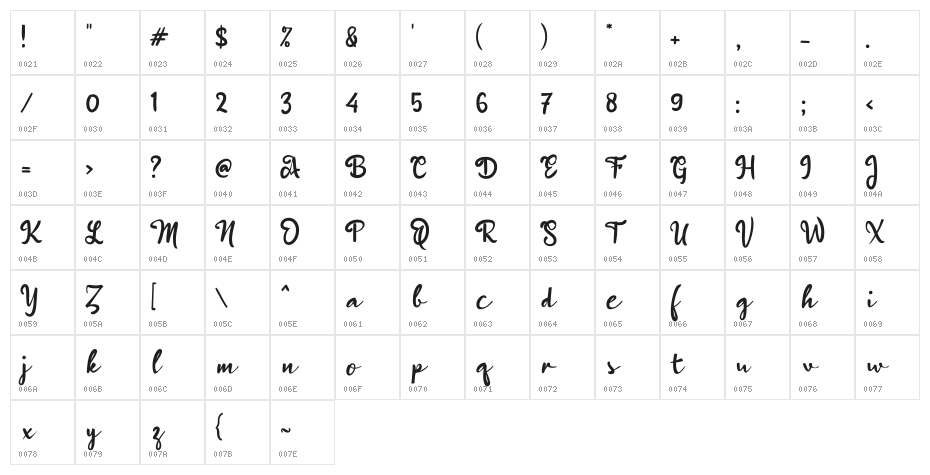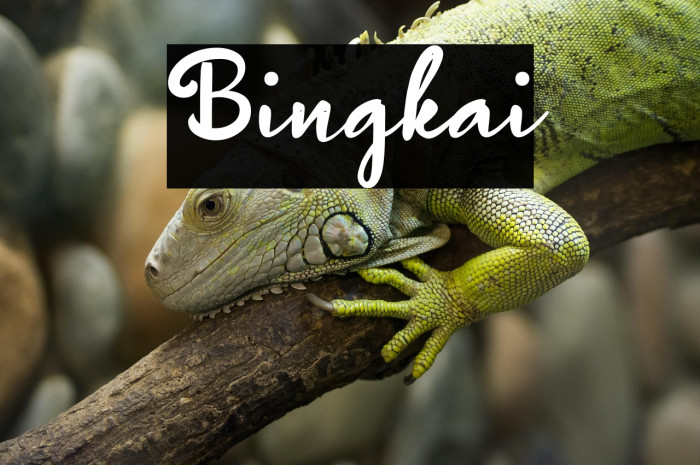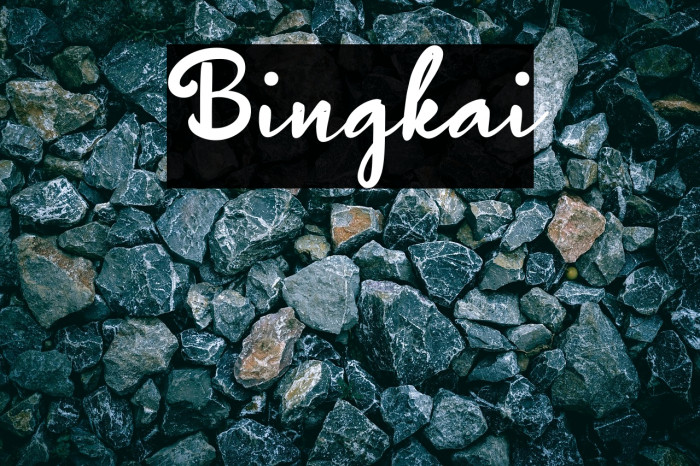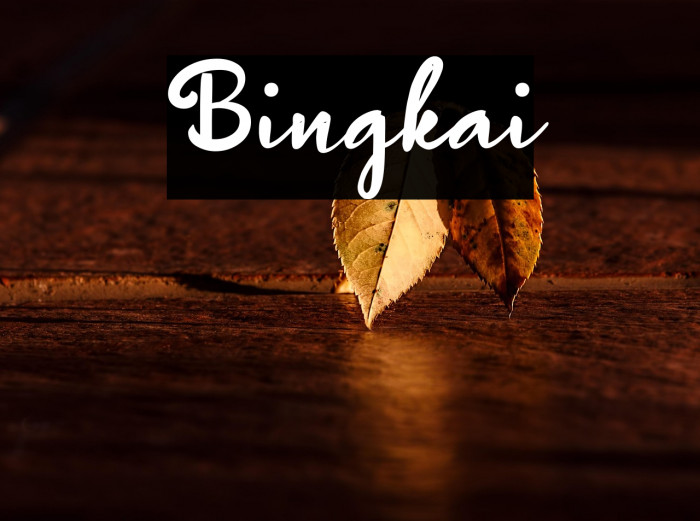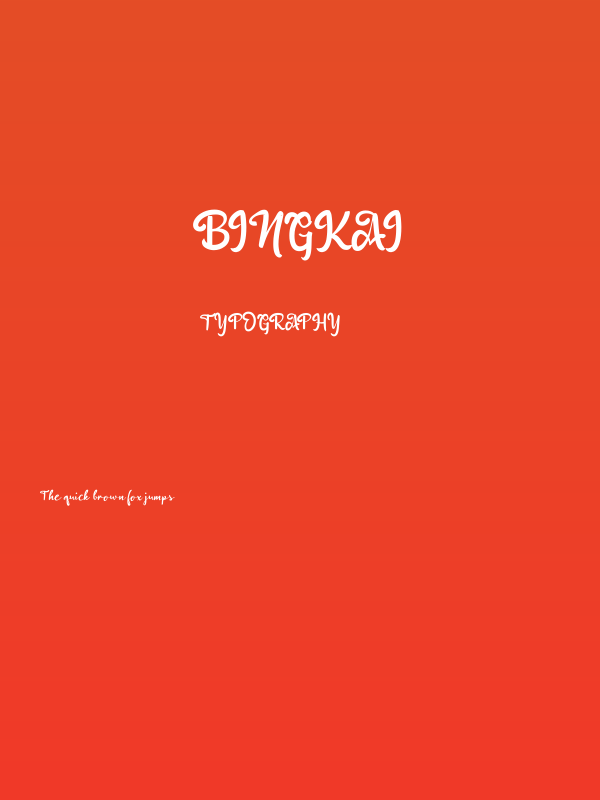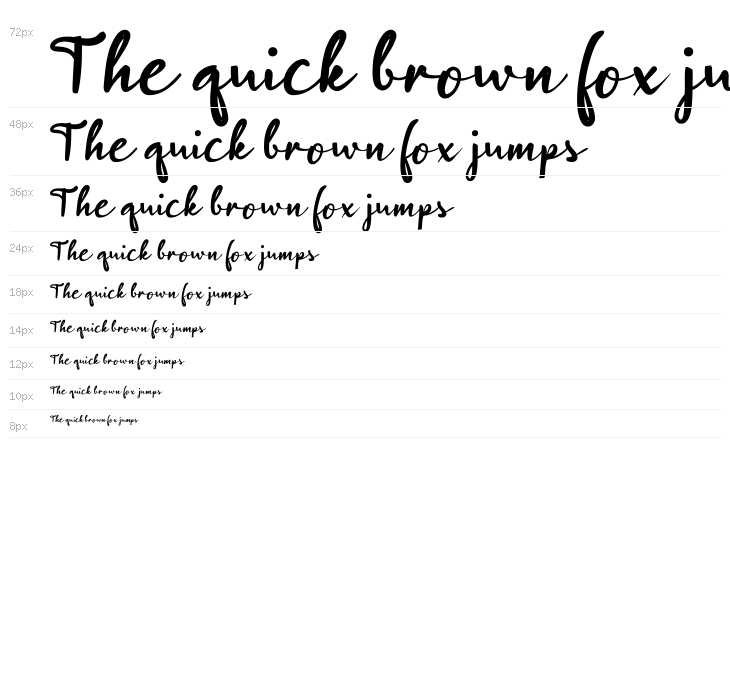
Bingkai Font
Bingkai Description
This font features a lively and flowing script style, characterized by its bold, cursive letterforms. The uppercase letters exhibit a playful yet elegant design, with smooth curves and a consistent stroke width that adds to its readability. The lowercase letters maintain a harmonious flow, complementing the uppercase with their slightly slanted and connected forms. The numerals are clear and distinct, matching the overall style with their rounded and fluid appearance. Special characters are well-integrated, providing versatility for various uses. This font's energetic and friendly aesthetic makes it suitable for creative and informal applications.
| Proposed Projects | Ideal for invitations, greeting cards, branding, and social media graphics. |